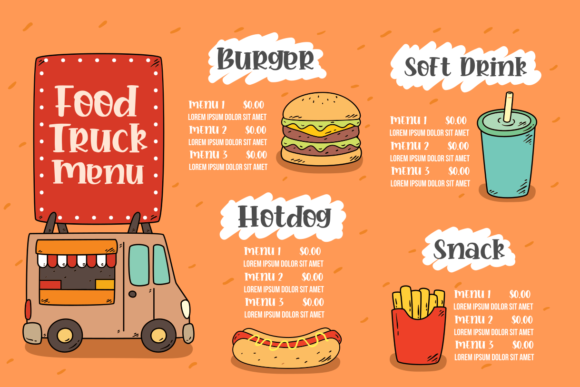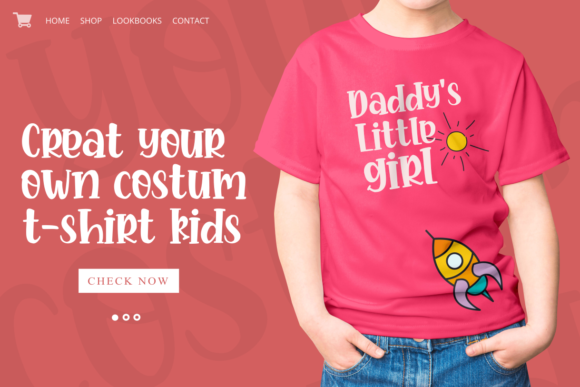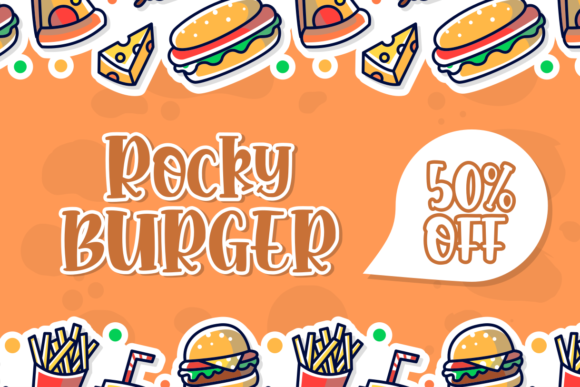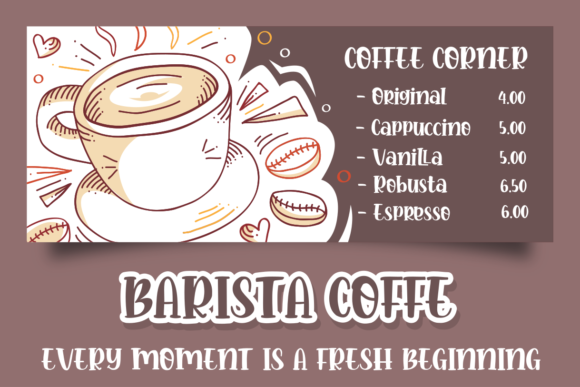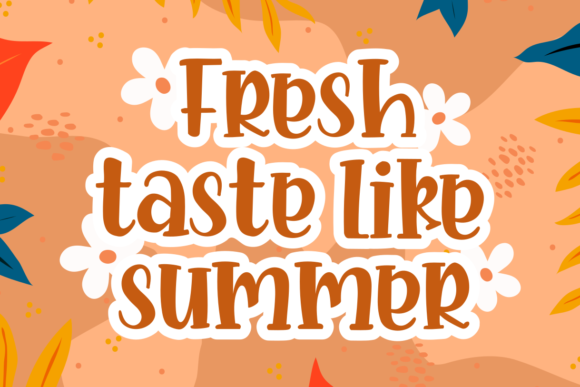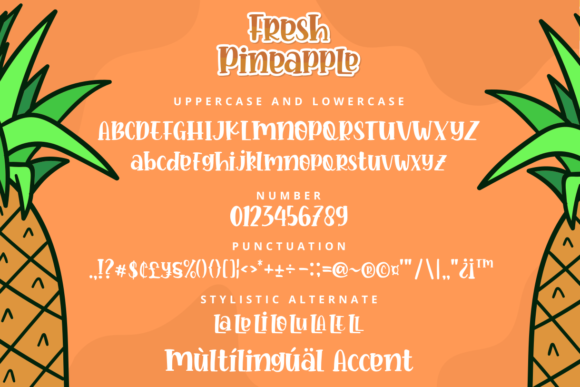
The Perfect Addition to Your Creative Projects: Fresh Pineapple Font
Have you ever been brainstorming a new design idea, only to feel like something’s missing? You know, that elusive spark that turns your project from good to great? For many designers, the key to unlocking that spark lies in the perfect typography. And that’s where the Fresh Pineapple Font comes in – a charming display font that’s sure to bring a smile to your face and a pop of personality to your designs.
This delightful font is designed to add a joyful touch to any project, from social media graphics to marketing materials and beyond. Its quirky charm makes it the perfect addition to any designer’s toolkit, allowing you to add a fresh (pun intended) twist to your creative ideas and make them truly stand out. Whether you’re a seasoned pro or just starting out, the Fresh Pineapple Font is sure to become your new go-to for adding a little extra flair to your designs.
Fresh Pineapple Font Key Features
- Unique Characteristics: The Fresh Pineapple Font features a playful, modern design with a touch of tropical flair, making it perfect for branding, packaging, and marketing materials.
- Font Weight: The font comes in light, regular, bold, and extra bold weights, allowing for a range of visual effects and emphasis.
Fresh Pineapple Font Review
I’ve had the chance to work with the “Fresh Pineapple Font” and I must say it’s a mixed bag. On the one hand, I think the designer has done a great job in capturing the feeling of a fresh pineapple.
- ✨ The font’s curves and lines are very well-balanced and give off a playful, tropical vibe.
- ✨ The OpenType features are well-implemented, allowing for some fun and creative uses of the font, such as ligatures and alternates.
However, I do have some concerns about the font’s limitations.
- ⚠️ The font’s character set is somewhat limited, which could be a problem for projects that require a wide range of languages or special characters.
- ⚠️ The font’s spacing and kerning could be improved in certain situations, which can affect the overall readability of text.
Overall, I think the “Fresh Pineapple Font” is a solid choice for projects that require a fun, playful feel. However, I would caution against using it for projects that require a high level of polish or a wide range of language support.
Tips for Getting the Most Out of Fresh Pineapple Font
Here are a few tips to help you get the most out of Fresh Pineapple Font:
- Use it to add a touch of tropical flair to your designs.
- Pair it with bright colors and bold graphics for a fun and playful look.
Here are a few common use cases for Fresh Pineapple Font:
- Summer-themed designs, such as beach party invitations or tropical vacation brochures.
- Food and beverage branding, such as pineapple juice or tropical fruit labels
Alternatives to “Fresh Pineapple Font”
Playfair Display is a luxurious, elegant serif font suitable for high-end branding, invitations, and magazine titles. It has a more classic and sophisticated feel compared to Fresh Pineapple Font, which is more modern and playful. Use Playfair Display when you need to convey luxury, sophistication, and refinement.
Great Vibes is a beautiful, handwritten script font perfect for creating a relaxed, casual atmosphere. It’s ideal for food, fashion, and lifestyle brands that want to convey a sense of fun and playfulness. Compared to Fresh Pineapple Font, Great Vibes has a more organic and free-flowing feel, making it perfect for creative and artistic projects.